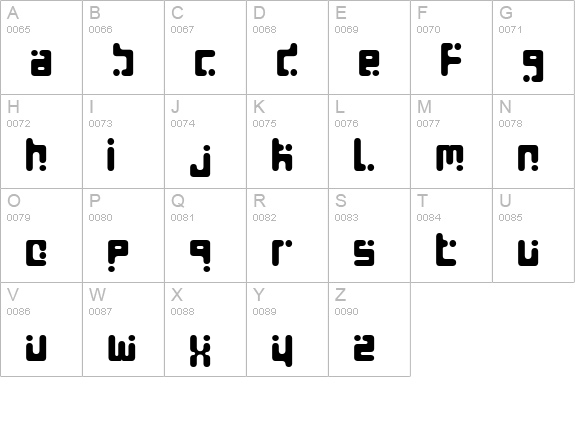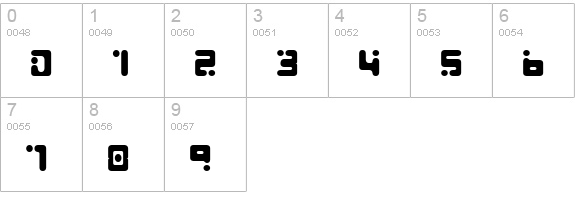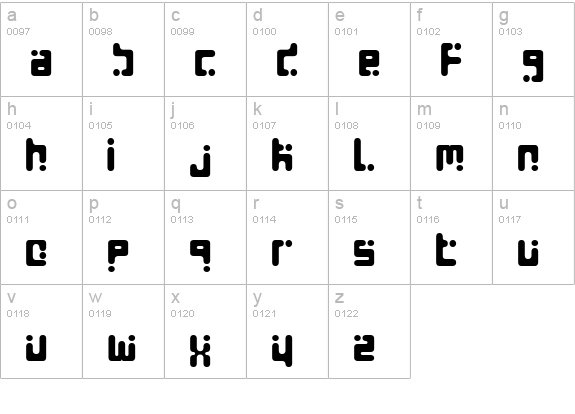
Seeds Font Details
Introducing Seeds Font, a beautifully crafted typeface that effortlessly combines elegance with a touch of whimsy. This versatile font is perfect for a wide range of creative projects, from logo designs to invitations, branding materials, and more. Seeds Font boasts a unique and organic aesthetic, reminiscent of delicate plant seeds gently scattered across a fertile field. Its intricate details and playful curves add a sense of natural beauty and charm to any design. Whether you're aiming for a sophisticated and refined look or a more relaxed and approachable vibe, this font has got you covered. One of the best things about Seeds Font is that it is completely free. You heard that right - this stunning typeface is freely available to download at FontsMarket.com. It's a rare gem in the world of typography, offering both exceptional quality and accessibility to designers and enthusiasts alike. With its wide range of weights and styles, Seeds Font provides endless possibilities for creative expression. Whether you need a bold and attention-grabbing headline or a subtle and refined body text, this font has the flexibility to meet your every need. Its clean and legible characters ensure readability across various mediums and sizes, making it a reliable choice for both digital and print projects. Seeds Font is also equipped with a comprehensive set of glyphs, including international language support, punctuation marks, numerals, and special characters. This allows you to seamlessly integrate the font into multilingual projects, ensuring a cohesive and professional appearance across different languages and regions. So why wait? Unleash your creativity and let Seeds Font breathe life into your designs. Download it for free today at FontsMarket.com and embark on a journey of endless possibilities. Let this enchanting typeface become the seed that grows your design vision into a flourishing masterpiece.